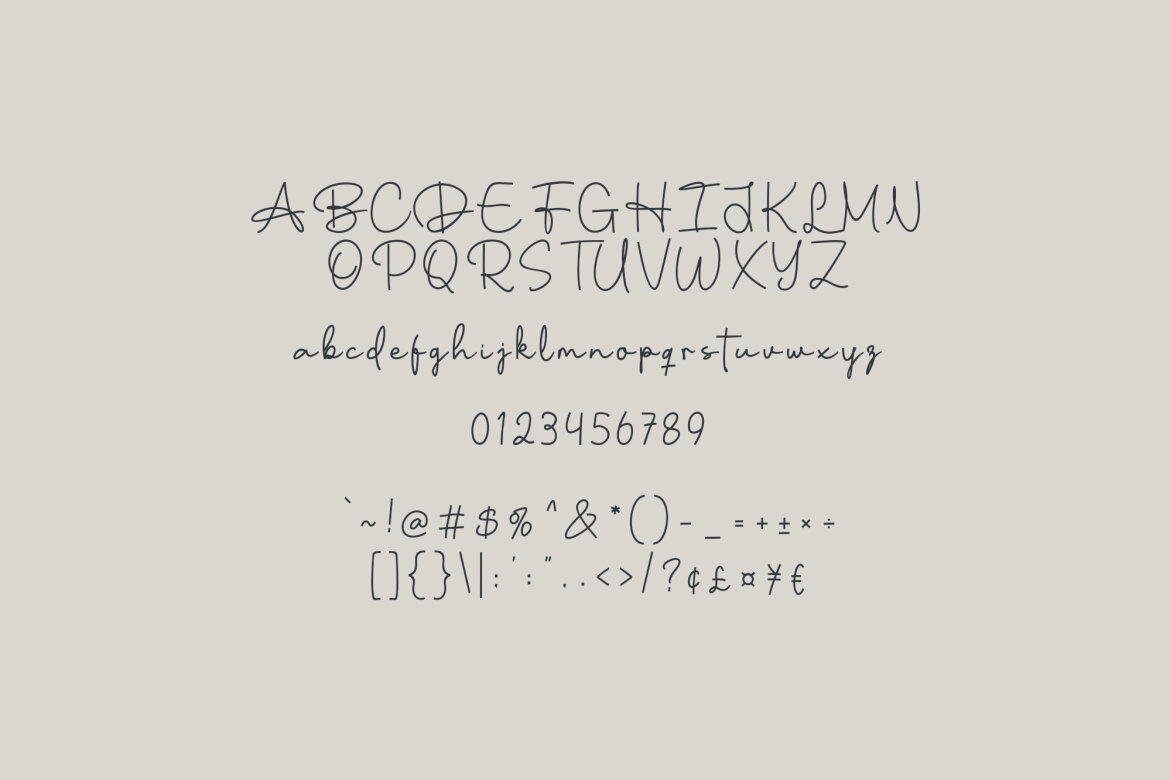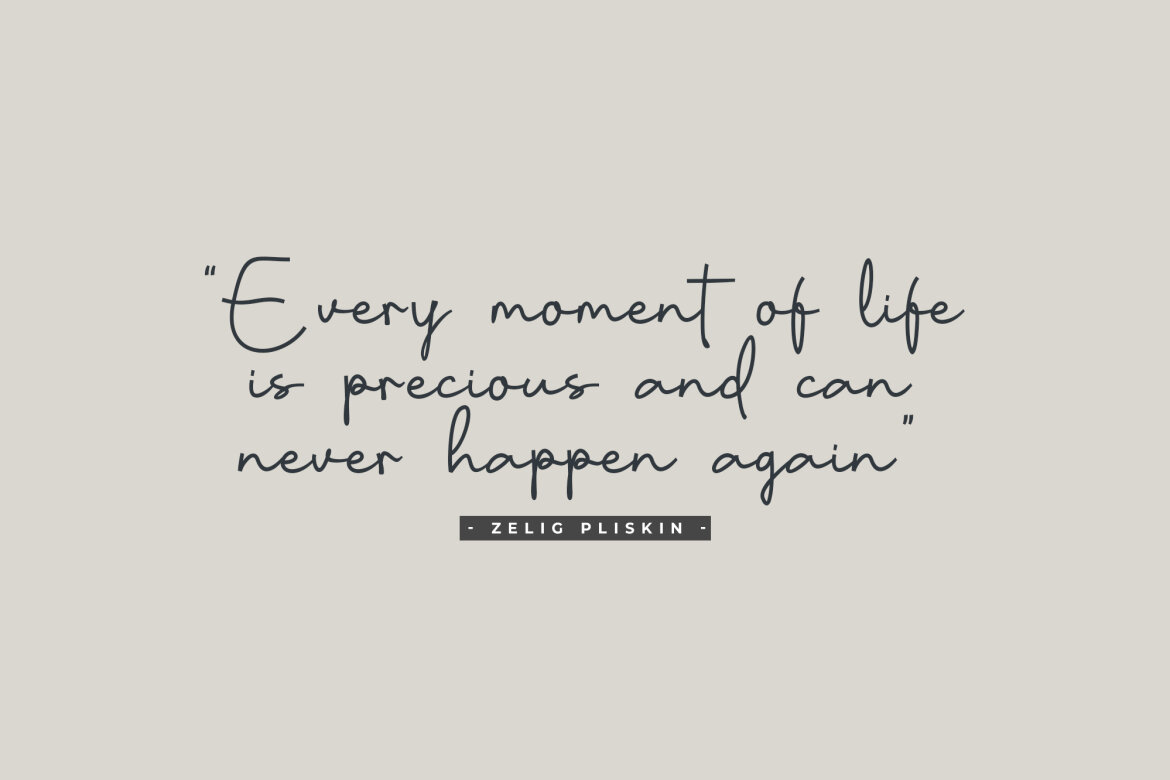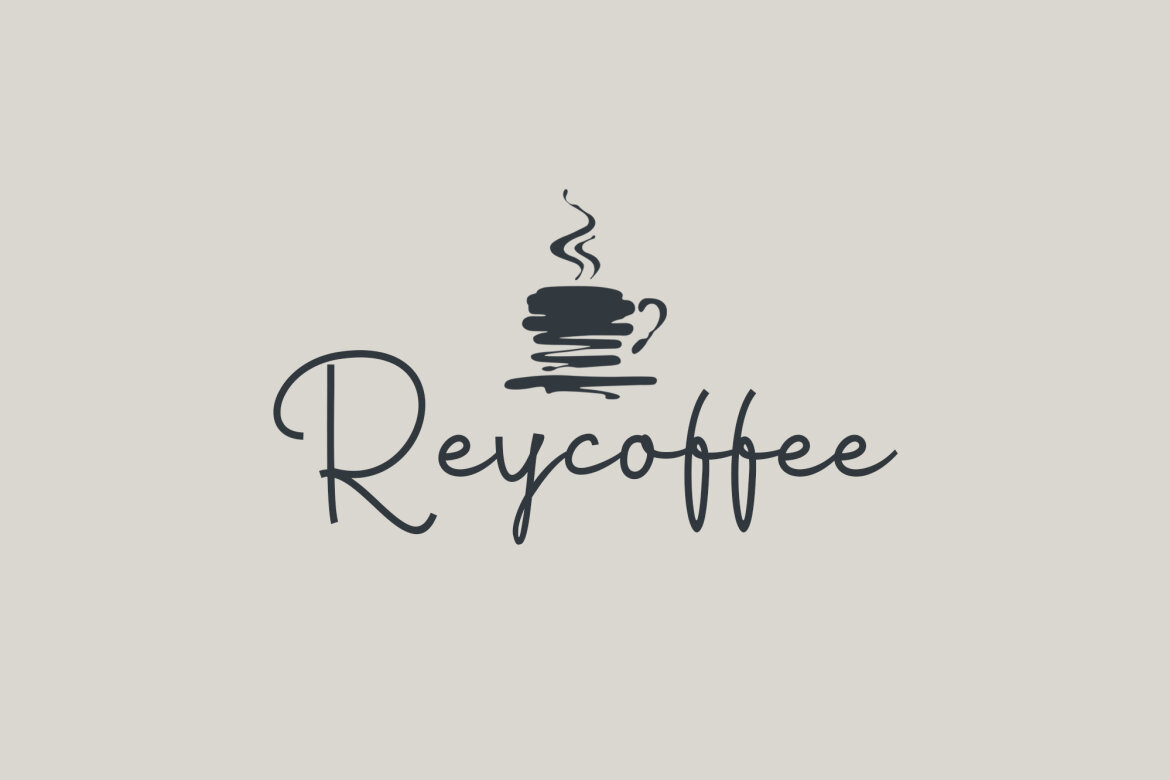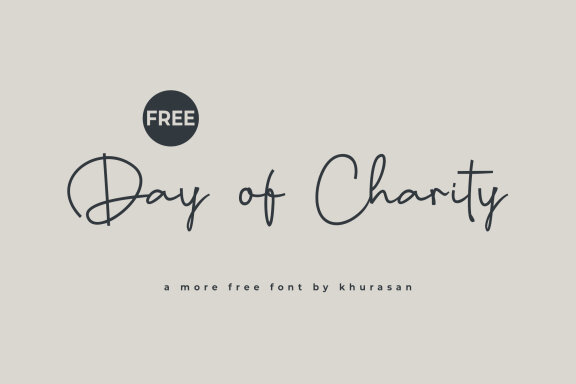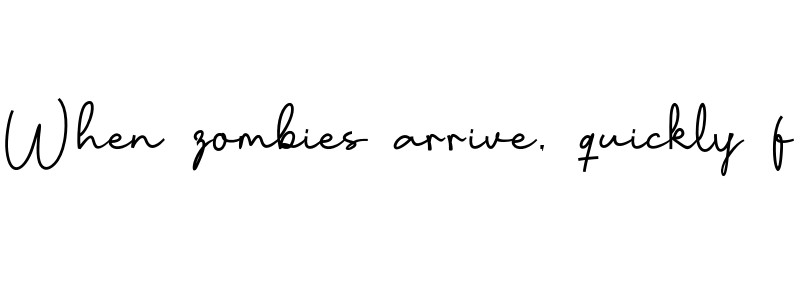
Days of Charity FREE Font
Days of Charity
Days of Charity is a stylish, modern, and elegant script font perfect for posters, logos, magazines, book covers, banners, and many more! Get this amazing font, and use it to create lovely designs. It can easily be matched to an incredibly large set of projects, so add it to your creative ideas and notice how it makes them stand out!